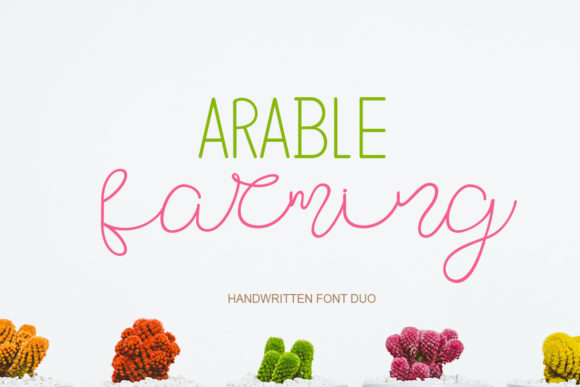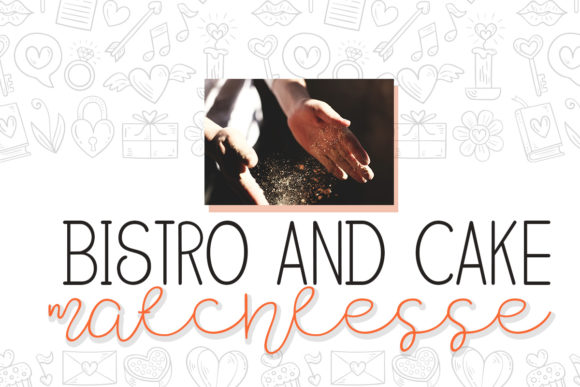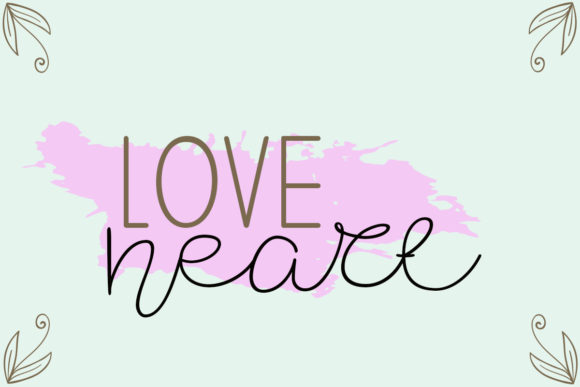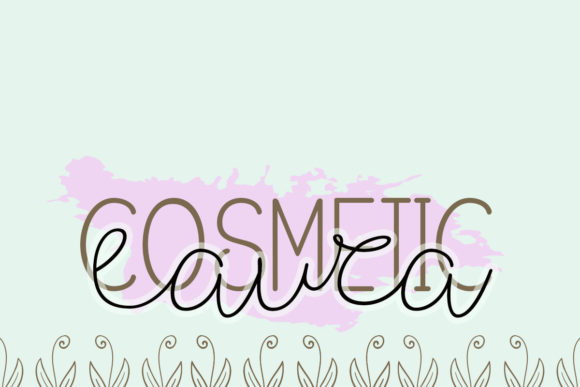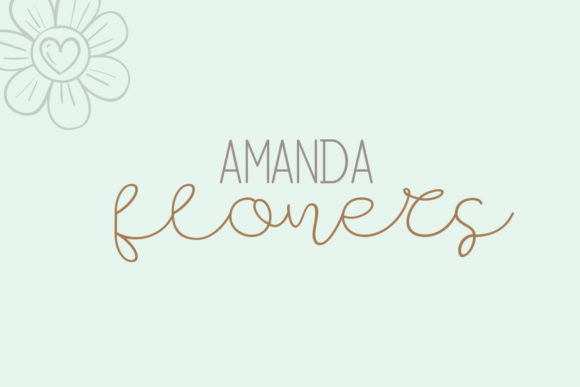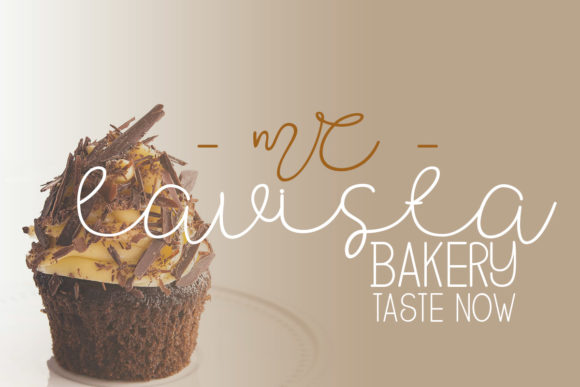
Arable Farming Font: Elevate Your Creations with this Stunning Duo
Are you a designer, crafter, or creative looking for the perfect font to take your projects to the next level? Look no further than Arable Farming, a lovely duo font that combines a crisp sans serif and a beautiful script. This expertly designed font duo is sure to make your creations look out of this world, giving you the potential to take your ideas far further.
The Perfect Combination: Sans Serif and Script
Arable Farming Font is a unique and versatile duo that pairs a clean sans serif font with a elegant script font. The sans serif font is perfect for headings, titles, and other display text, providing a modern and sleek look. The script font, on the other hand, adds a touch of sophistication and whimsy, making it ideal for adding a personal touch to your designs.
The combination of these two fonts creates a beautiful contrast that can add depth and visual interest to any project. Whether you’re designing a logo, creating a brand identity, or crafting a one-of-a-kind invitation, Arable Farming Font is the perfect choice.
Expertly Designed for Creative Success
Arable Farming Font has been expertly designed to help you achieve creative success. The font duo has been carefully crafted to ensure that it is easy to read, visually appealing, and highly versatile. The sans serif font is clear and concise, making it perfect for body text, while the script font adds a touch of elegance and sophistication.
The design of Arable Farming Font takes into account the latest typography trends and best practices, ensuring that your designs will look modern, fresh, and professional. Whether you’re a seasoned designer or just starting out, this font duo is sure to help you create stunning designs that exceed your expectations.
Arable Farming Font offers endless creative possibilities, making it perfect for a wide range of design projects. Here are just a few ideas to get you started:
- Logos and branding: Create a unique and memorable logo that showcases your brand’s personality and style.
- Invitations and stationery: Add a touch of elegance and sophistication to your invitations, cards, and other stationery.
- Signage and displays: Use Arable Farming Font to create eye-catching signage and displays that grab attention.
- Packaging and labels: Add a personal touch to your packaging and labels with this beautiful font duo.
- Digital designs: Use Arable Farming Font to create stunning digital designs, including social media graphics, blog posts, and more.
Why Choose Arable Farming Font?
There are many reasons why Arable Farming Font stands out from the crowd. Here are just a few:
- Unique and versatile: This font duo offers a unique combination of sans serif and script fonts that can be used for a wide range of design projects.
- Expertly designed: Arable Farming Font has been carefully crafted to ensure that it is easy to read, visually appealing, and highly versatile.
- High-quality: This font duo is of the highest quality, with crisp and clear lines that will look great in any design.
In conclusion, Arable Farming Font is a stunning duo font that is sure to elevate your designs to new heights. With its unique combination of sans serif and script fonts, expert design, and endless creative possibilities, this font duo is perfect for designers, crafters, and creatives of all levels. Whether you’re looking to create a logo, invitation, or digital design, Arable Farming Font is the perfect choice. So why wait? Download Arable Farming Font today and take your creative ideas to new and exciting places!